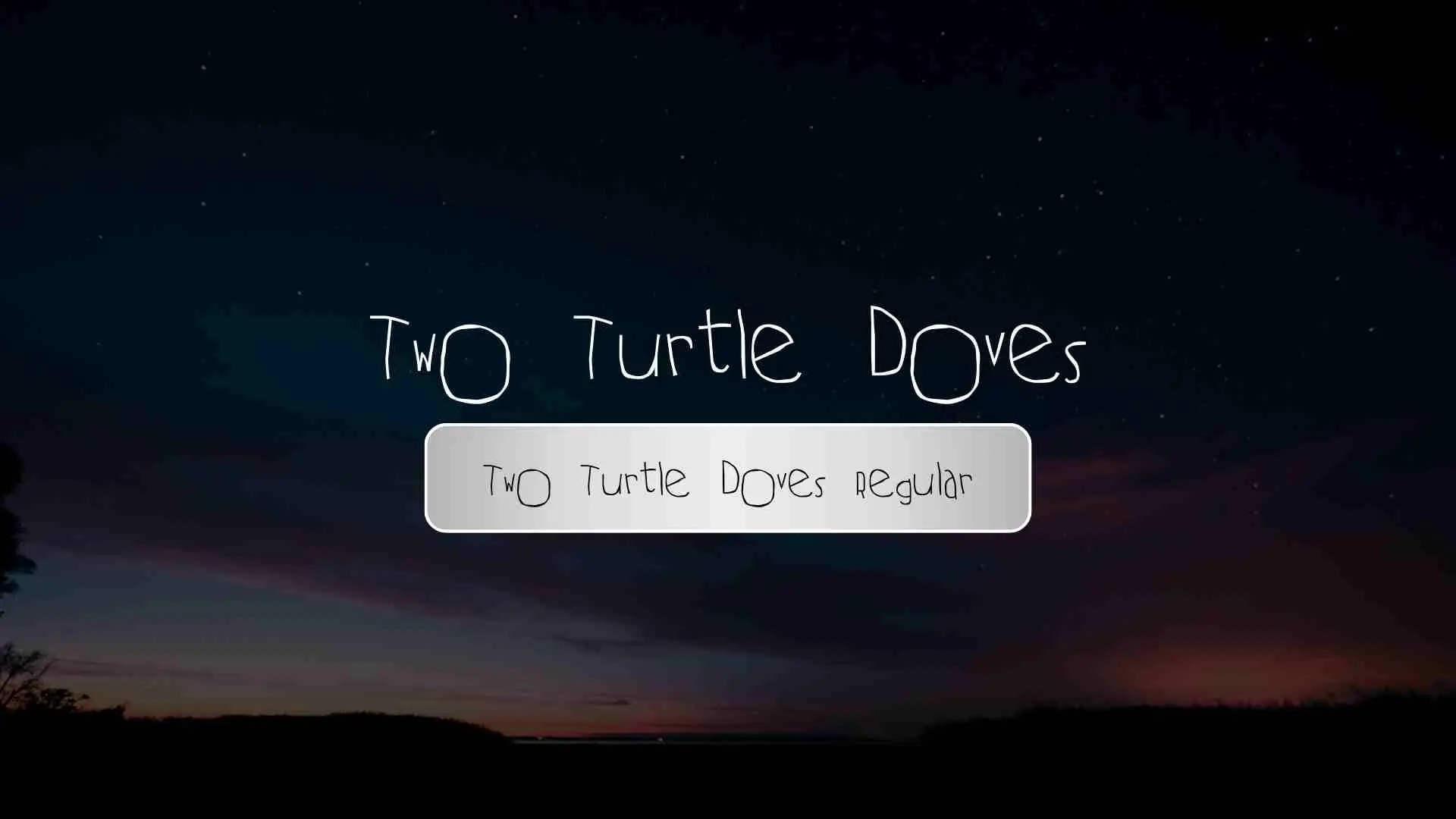
The font Two Turtle Doves Regular, designed by Divide By Zero, falls under the Display category & Two Turtle Doves font family. Its smooth, flowing letterforms make it a versatile choice for projects that require both elegance and readability. Two Turtle Doves is particularly well-suited for Creative Projects, Adding flourishes to designs, Video game and Themed Graphics. With its balance of simplicity and decorative appeal, this font brings a polished touch to both personal and professional designs.